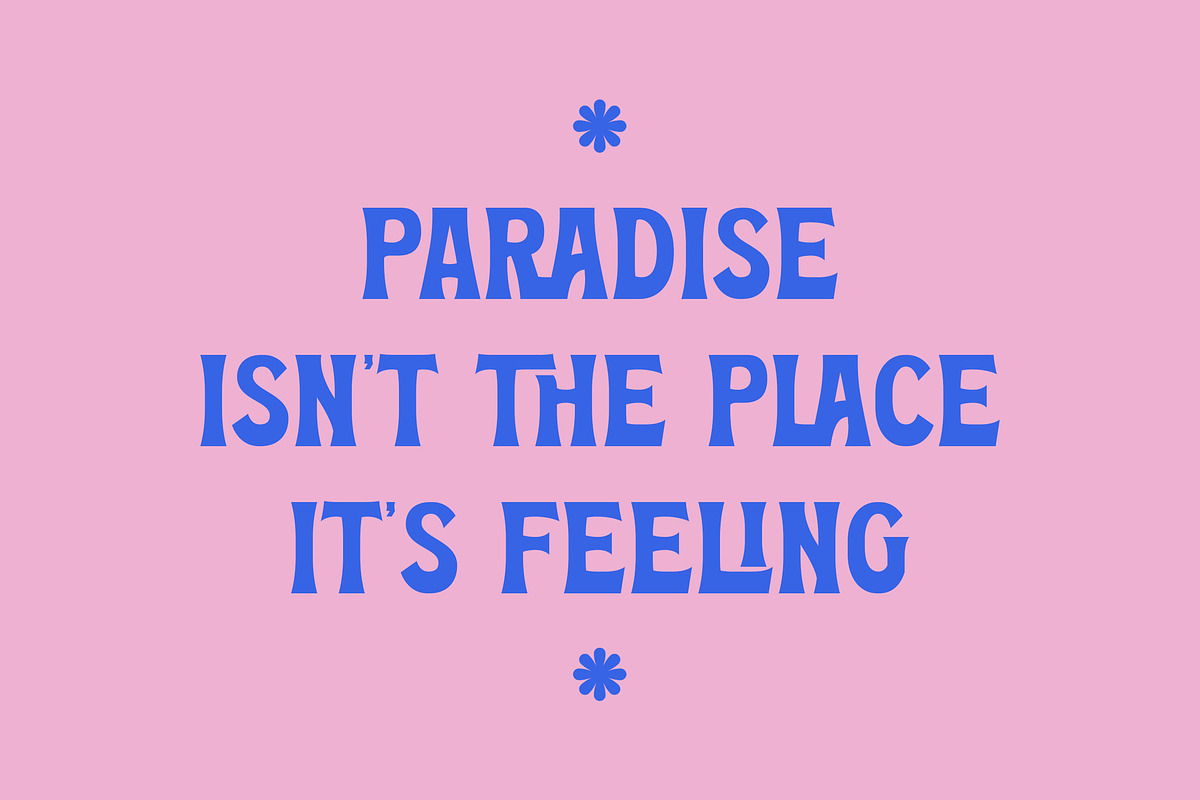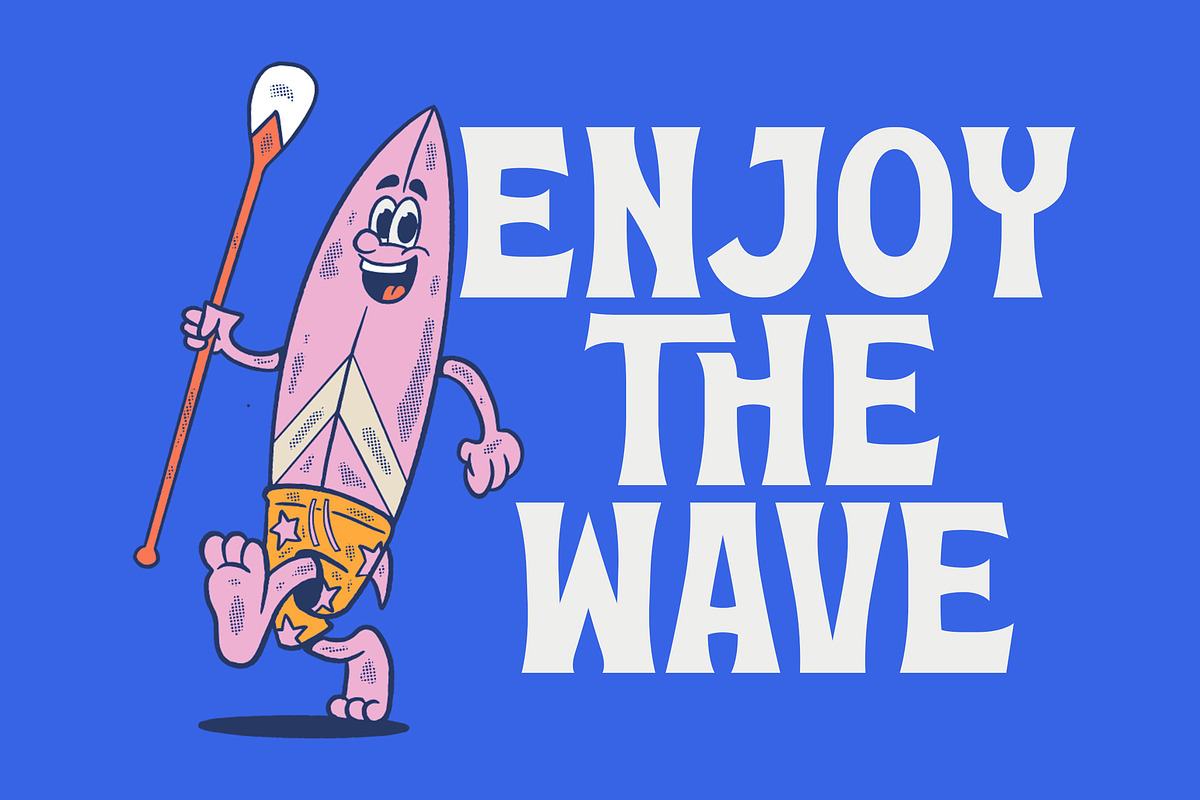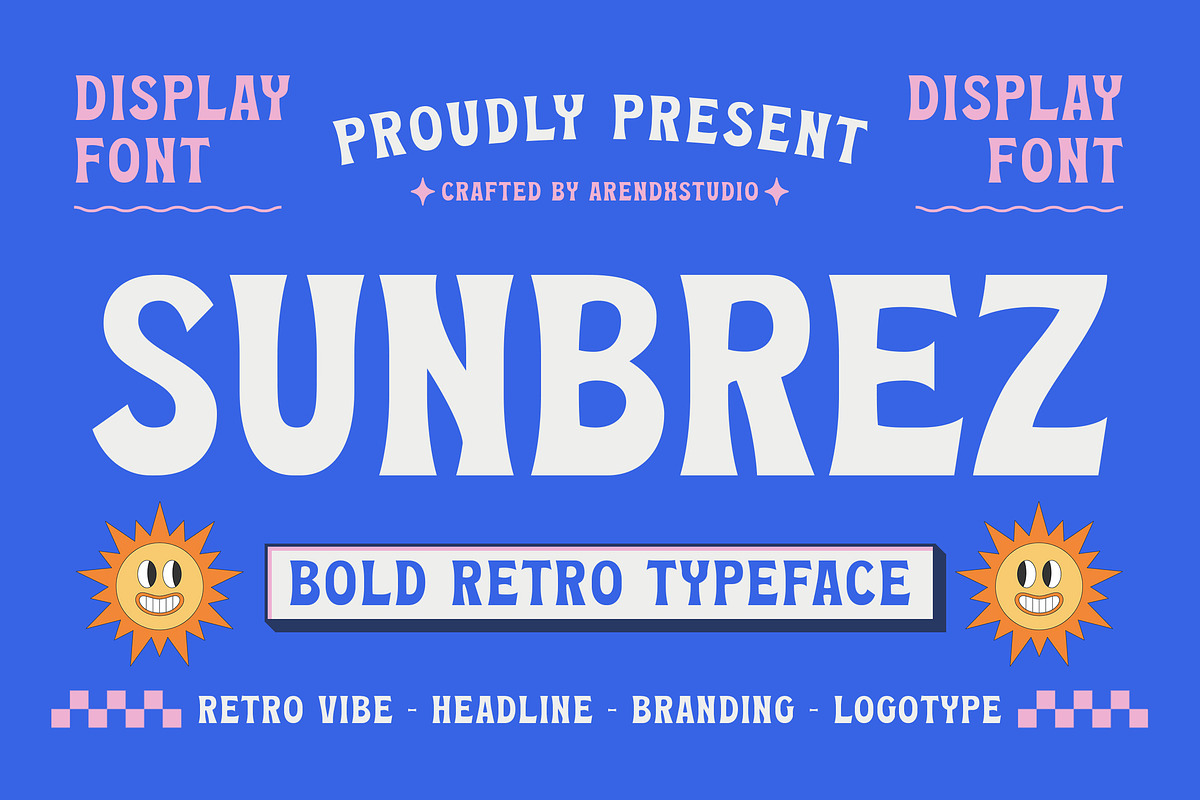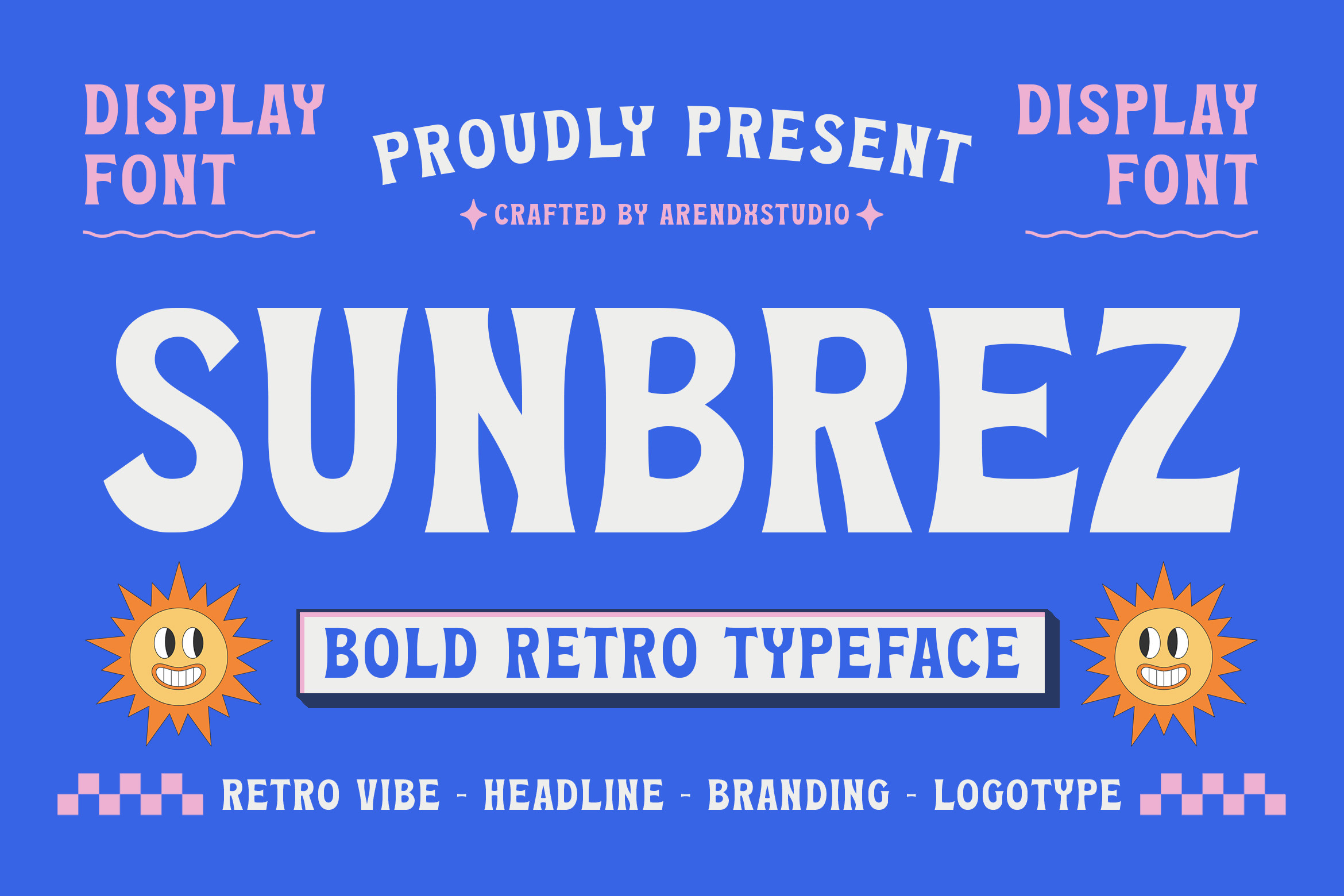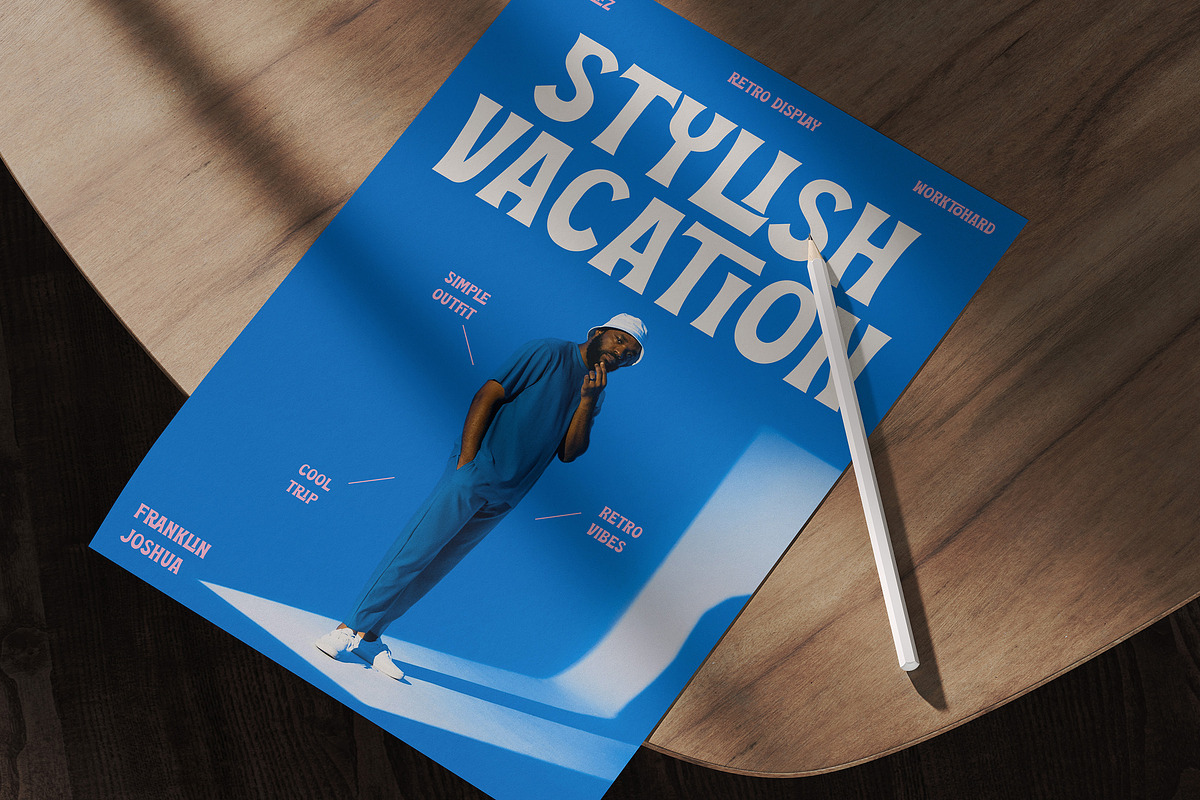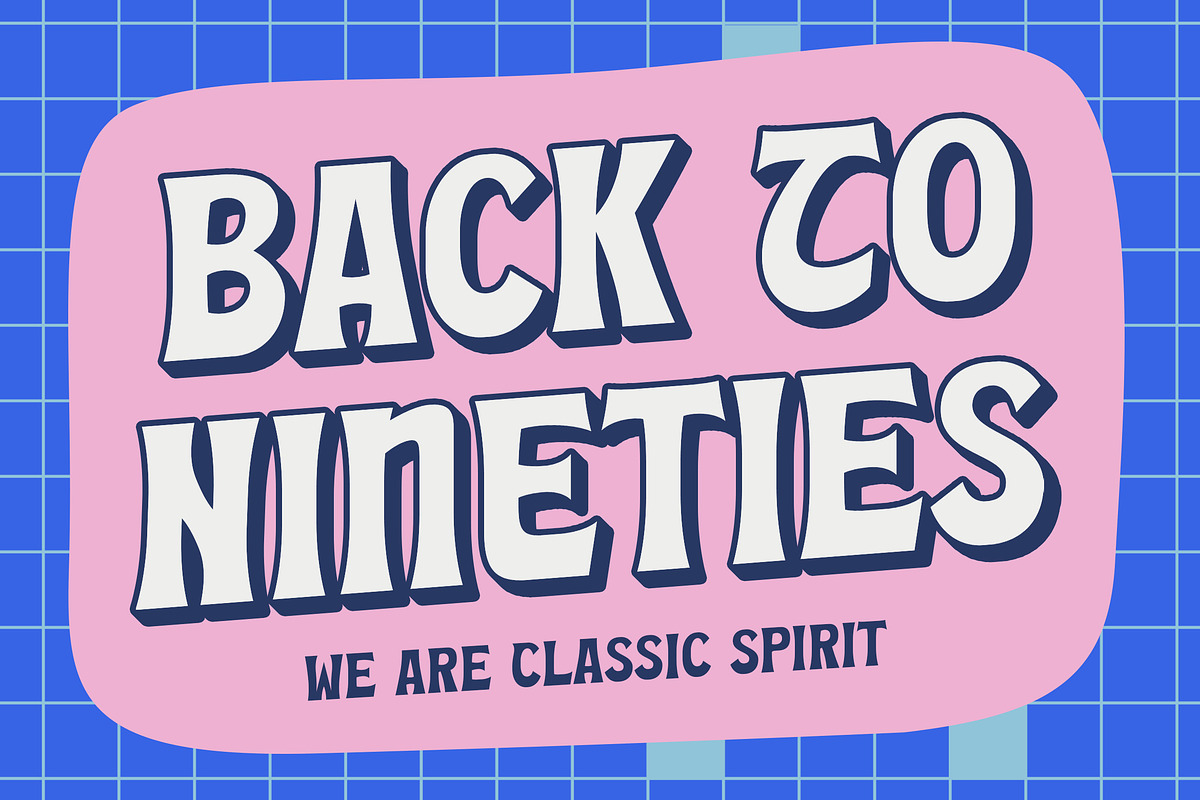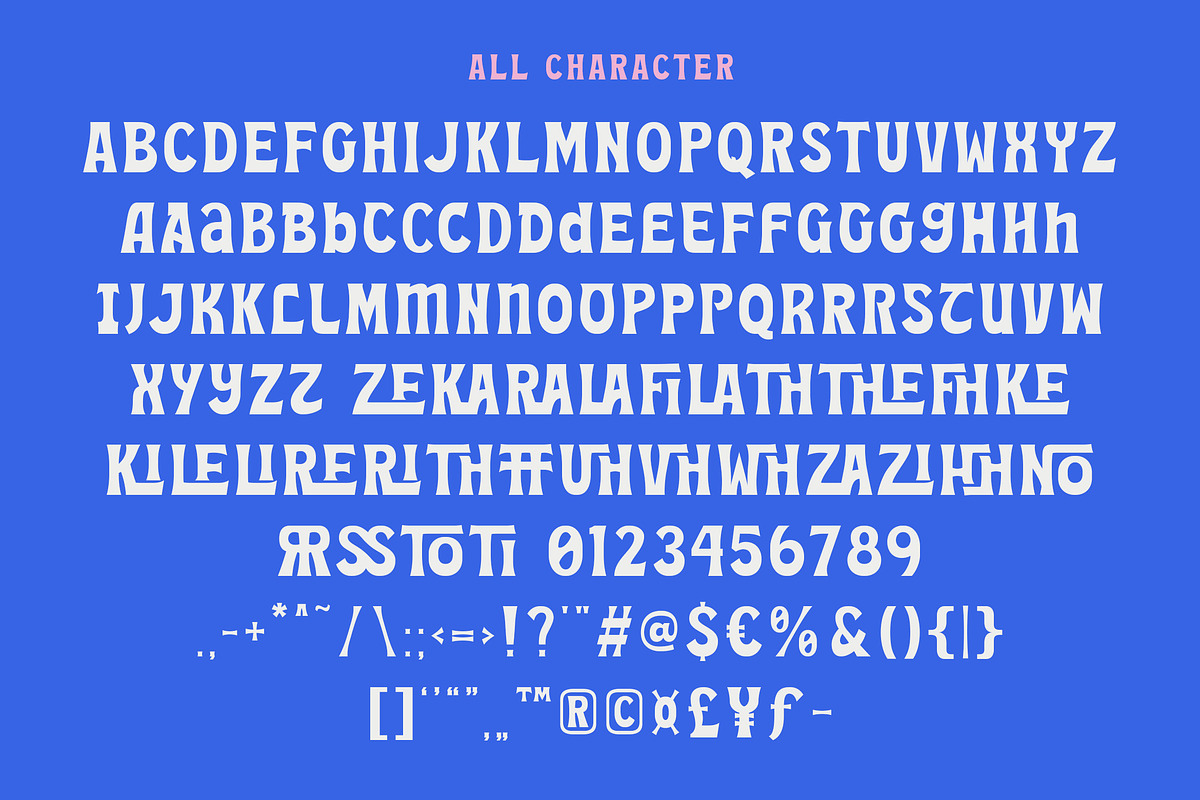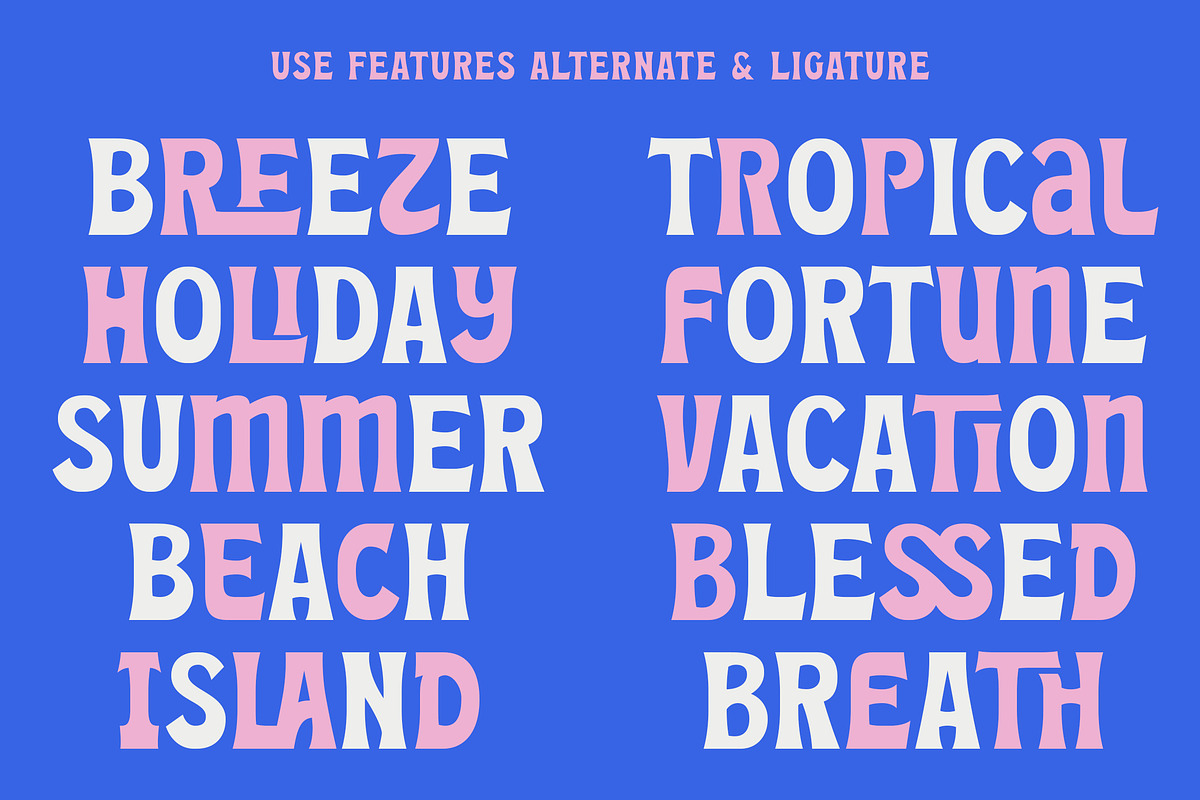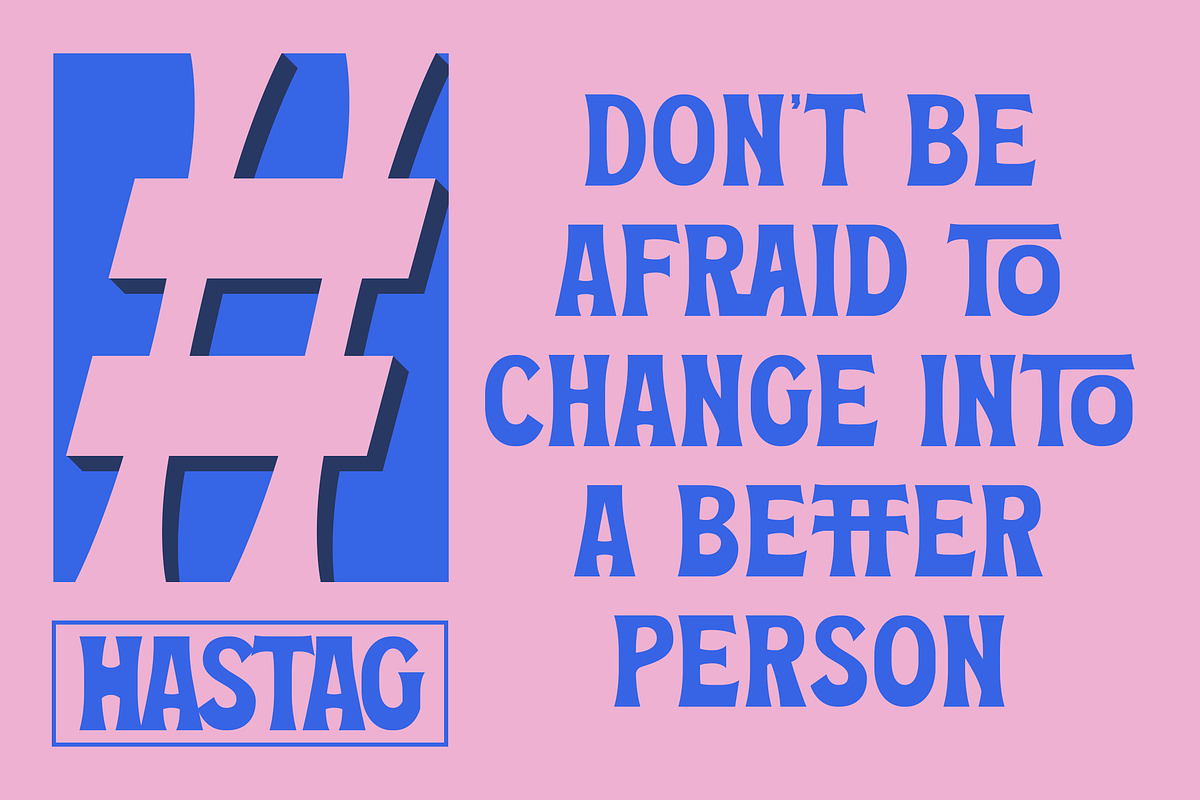
Sunbrez – Bold Retro Typeface
"Sunbrez" – Bold Retro Typeface
Sunbrez is a bold and playful retro typeface crafted by Arendxstudio, designed to bring sunshine and energy into your creative projects. With exaggerated curves, strong lines, and a vibrant attitude, Sunbrez captures a nostalgic feel while maintaining a fresh and modern appeal.
Perfect for headlines, branding, logotypes, and anything with a bold personality, this display font delivers high impact with fun, quirky character. Ideal for vintage-themed designs, colorful graphics, and eye-catching posters, Sunbrez adds a joyful and confident voice to your typography.